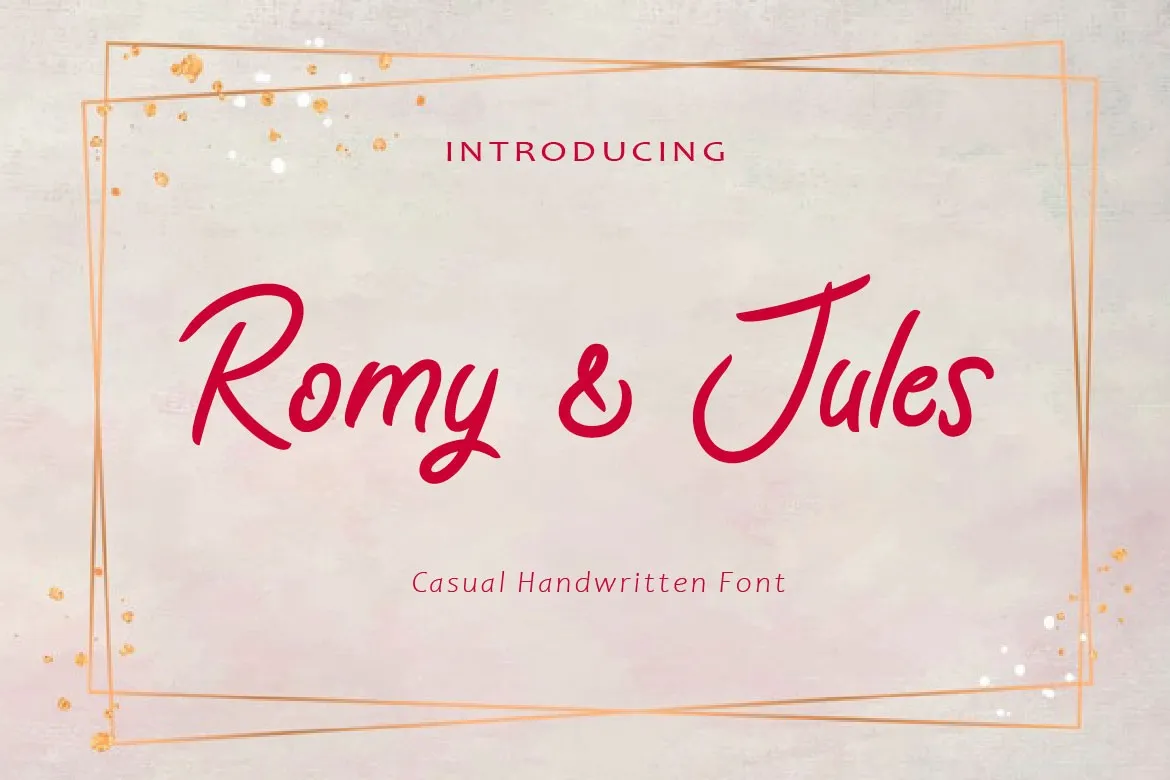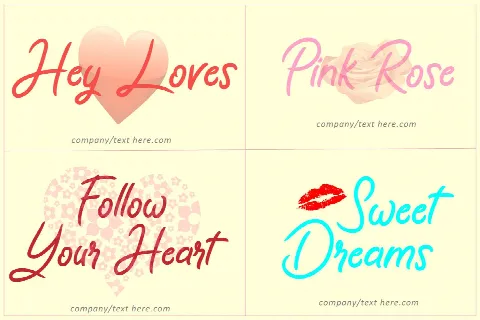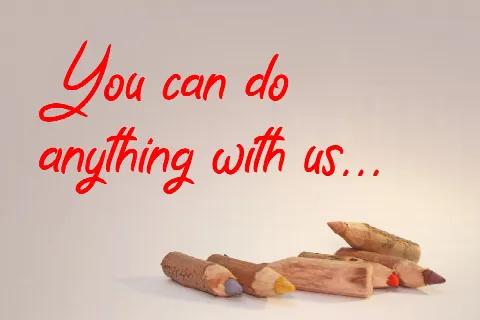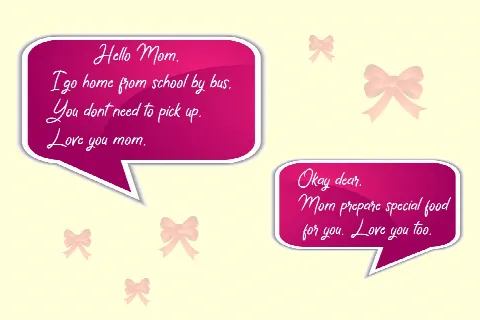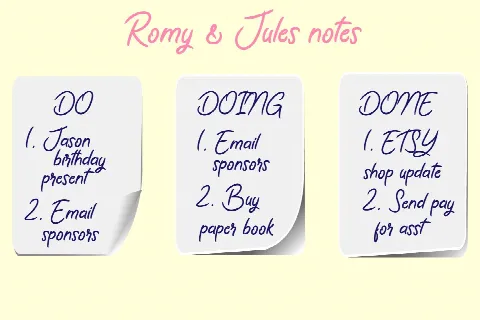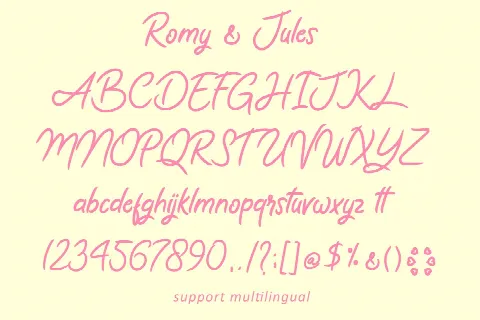
Romy & Jules
Romy & Jules are natural handwriting by giving a touch of love. This is perfect for any of your projects that require a charming sense of handwriting.
Use {} to get love doodles.
This is suitable for logos, watermarks on photography, signatures, branding, advertisement, quotes, invitations, stationery, wedding design,album covers, business cards, clothing, magazines, posters, and more!